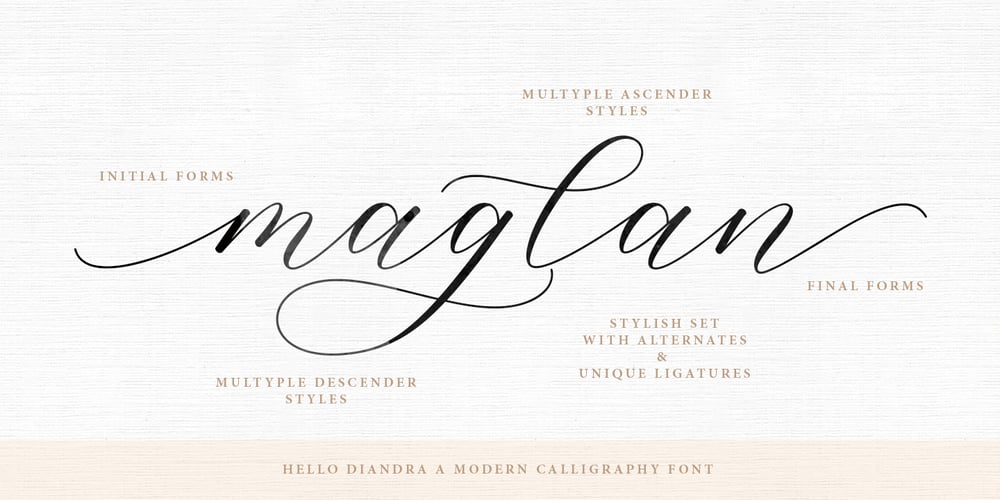
Hello Diandra Font Family was designed by Fajar Gunawan and published by Fargun Studio. Hello Diandra contains 1 styles and family package options. Introducing! Hello Diandra Script – a new fresh & modern calligraphy style, decorative characters and a dancing baseline! So beautiful on invitation like greeting cards, branding materials, business cards, quotes, posters, and more design concept! Alternates The alternative characters were divided into several Open Type features such as Swash, Stylistic Sets, Stylistic Alternates, and Ligature. The Open Type features can be accessed by using Open Type savvy programs such as Adobe Illustrator, Adobe Photoshop, Corel Draw X version, And Microsoft Word. And this Font has given PUA code (specially coded fonts). so that all the alternate characters can easily be accessed in full by a craftsman or designer. ________________________________________ Features : • Unique ligatures • Stylistic Alternates • Stylistic sets • Basic Latin A-Z and a-z • Numbers • International Symbols include • Punctuations